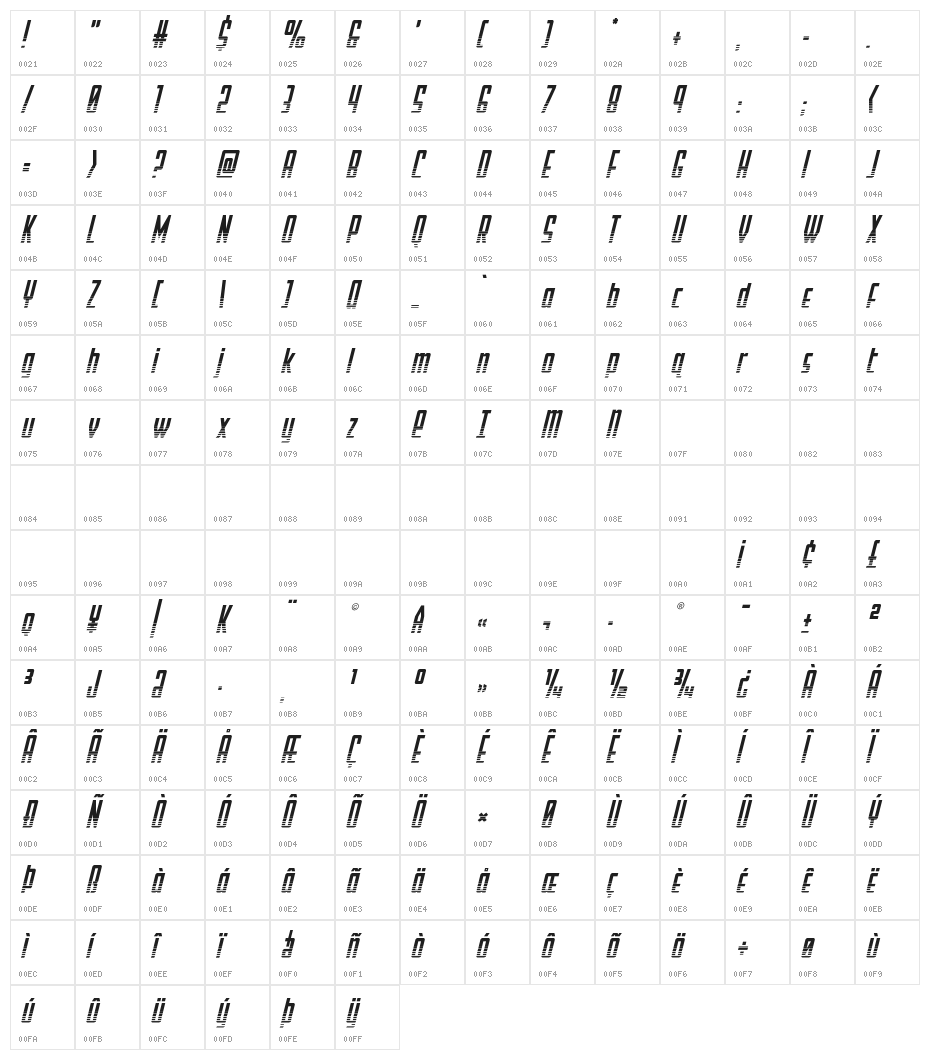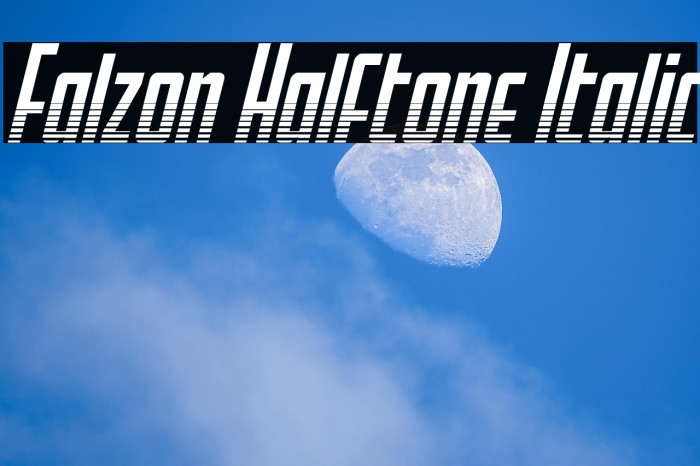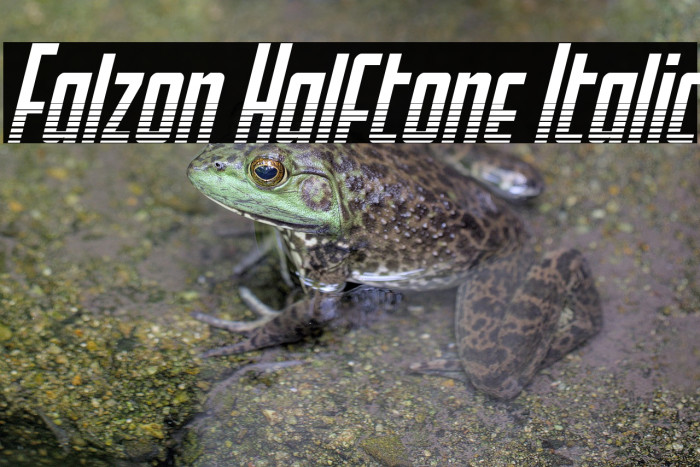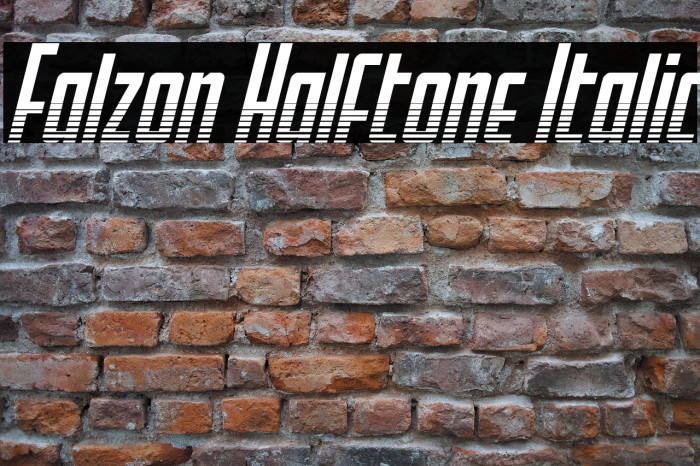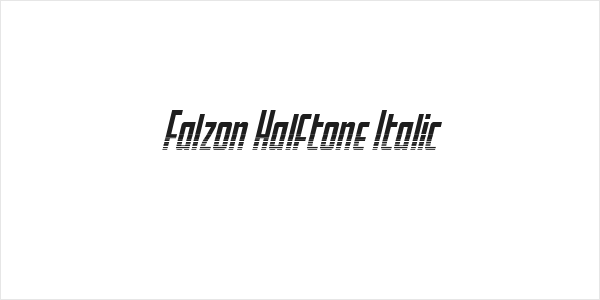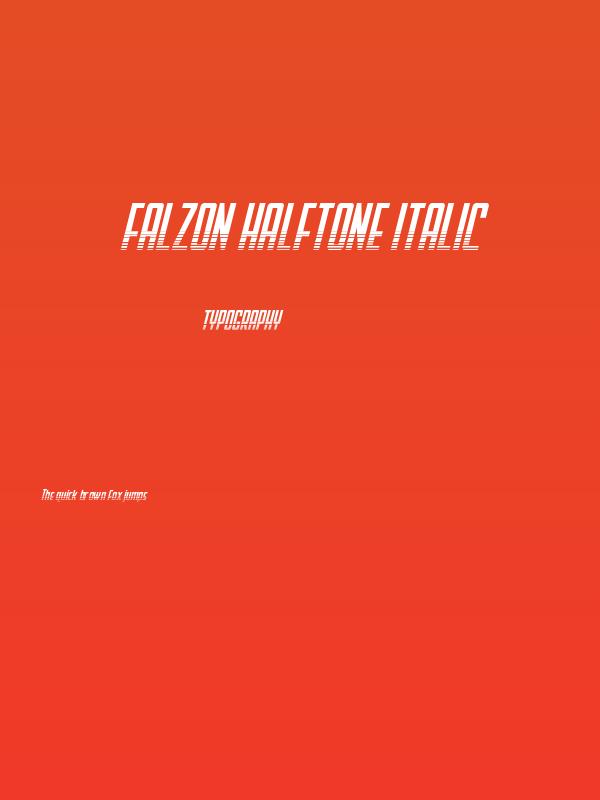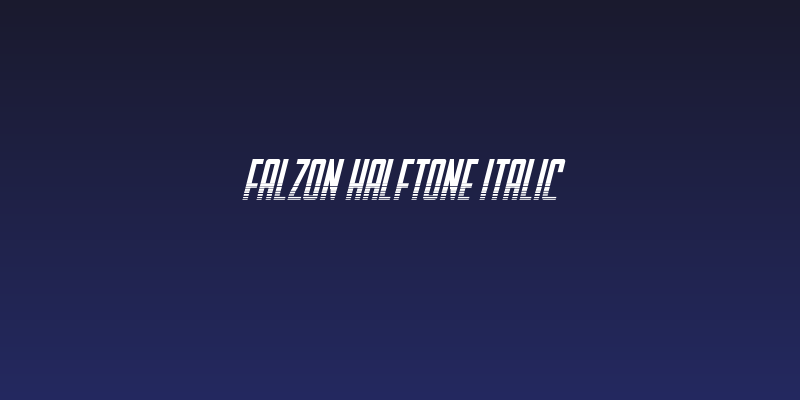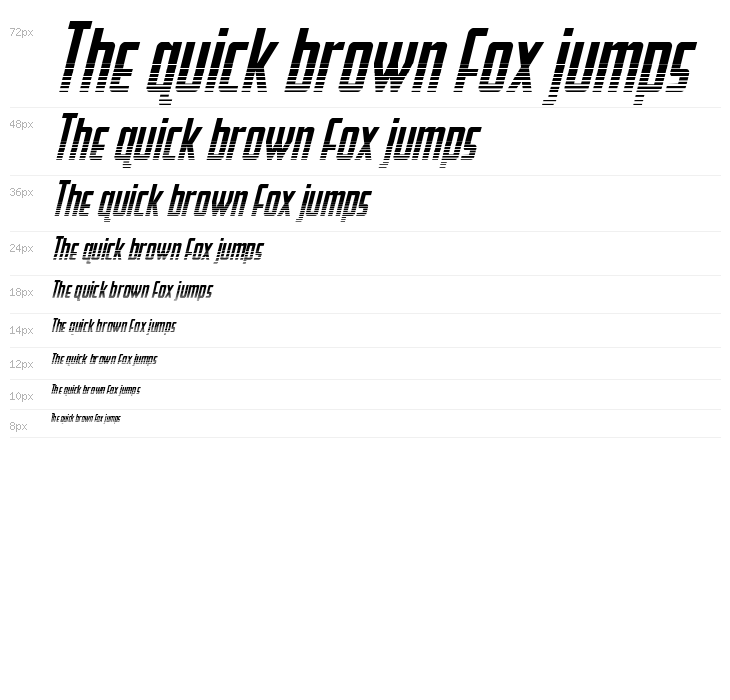
Falzon Halftone Italic Font
Falzon Halftone Italic Description
This font features a dynamic and modern design with a halftone effect that gives it a unique, textured appearance. The italicized style adds a sense of movement and speed, making it ideal for projects that require a futuristic or edgy look. The uppercase and lowercase letters are well-defined, with consistent spacing and a slight slant that enhances readability. The numbers and special characters maintain the same stylistic elements, ensuring a cohesive appearance across different text elements. The font's bold strokes and halftone pattern create a striking visual impact, suitable for attention-grabbing headlines and creative designs.
| Proposed Projects | Ideal for branding, posters, album covers, and any project needing a bold, modern aesthetic. |